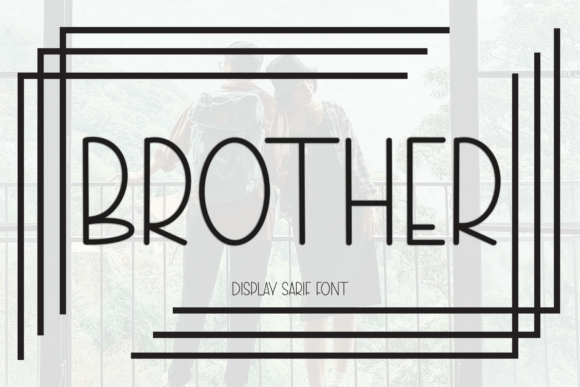
You know that moment when you see a beautiful design and instantly feel inspired? It’s like a spark of creativity ignites within you, and you can’t wait to bring your own vision to life. Whether you’re a seasoned designer or a DIY enthusiast, having the right tools can make all the difference. That’s where Brother Font comes in – a stunning sans-serif font that adds a touch of elegance to any design.
Brother Font is more than just a font – it’s a game-changer for designers looking to elevate their work. With its unique blend of style and sophistication, this font is perfect for creating Instagram-worthy visuals, calligraphy scripts, or even branding materials. Its versatility and beauty make it an invaluable asset for any creative project, and we can’t wait to share its secrets with you.
Key Features of Brother Font
- Unique Characteristics: Brother Font features a unique blend of modern and traditional elements, with a distinctive flair that sets it apart from other fonts.
- Font Weight: Available in multiple weights, including light, regular, bold, and extra bold, allowing users to choose the perfect weight for their design needs.
Designer Review: Brother Font
Overall, I have mixed feelings about the Brother Font. While it has some great qualities, it also has some limitations that hold it back.
- Unique Personality: The font has a distinctive, friendly feel to it, which makes it perfect for branding and advertising.
- Readability: It’s easy to read, even at small font sizes, which is great for digital applications.
- Playful Touches: The font has some fun, creative touches that add to its personality.
- Limited Versatility: The font’s unique personality can also make it feel too playful or childish for some applications.
- Not Suitable for Body Text: While it’s great for headlines, the font can be too busy for body text, which can make it hard to read.
- Lack of Consistency: The font’s creative touches can sometimes feel inconsistent, which can be jarring.
The Brother Font is a great choice for projects where you want to add a playful, friendly touch. However, it may not be the best choice for projects where you need a more serious or professional tone.